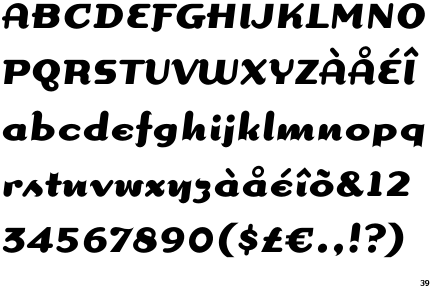
Bloop Script
Designer: Harold Lohner Year: 2006 Publisher: Harold's Fonts Matching versions that fit together to allow you to produce two-colour lettering. |